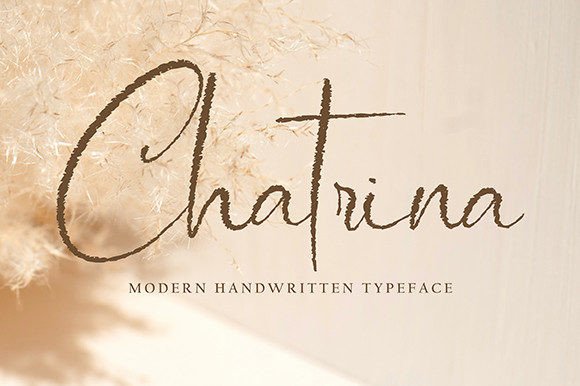
In a world where individuality and self-expression reign supreme, Chatrina Font emerges as a radiant beacon of creativity, inviting you to weave your own narrative with its enchanting strokes. This exquisite script font, meticulously crafted by the visionary minds of Pineungtype and Missinklab, transcends the boundaries of ordinary typography, transforming your words into captivating works of art.
With its delicate curves and elegant flourishes, Chatrina Font captures the essence of timeless beauty, evoking a sense of nostalgia and romance. Each character, meticulously shaped and balanced, dances across the page with a grace that is both captivating and alluring. Whether you're designing wedding invitations that exude elegance or crafting social media posts that demand attention, Chatrina Font is your secret weapon to leave a lasting impression.
Immerse yourself in a symphony of creativity as Chatrina Font takes you on a journey through the realms of imagination. Its versatile nature allows you to effortlessly adapt it to a myriad of projects, from heartfelt love letters to eye-catching branding materials. Let your creativity soar as you explore the endless possibilities that Chatrina Font presents, transforming ordinary words into extraordinary expressions.
But Chatrina Font is more than just a collection of letters and symbols; it's an experience that ignites your passion and fuels your imagination. With every stroke, you'll feel the magic of creation flowing through your veins, as your designs take on a life of their own. Embrace the transformative power of Chatrina Font and watch as your words blossom into breathtaking masterpieces.
Join the ranks of creative visionaries who have discovered the enchanting allure of Chatrina Font. Let your imagination run wild as you create designs that captivate, inspire, and leave an indelible mark on the world. With Chatrina Font as your creative companion, the possibilities are boundless. Embark on this extraordinary journey today and unlock the true potential of your creative brilliance.